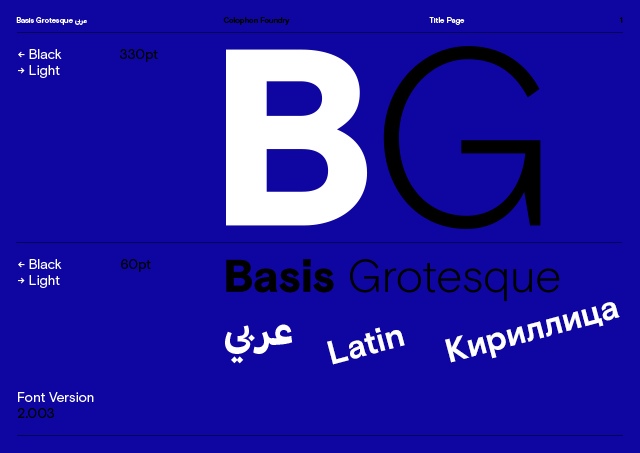
Basis Grotesque Pro Font
Basis Grotesque Pro Font is ideal for professional corporate branding, modern web interfaces, clean editorial design, tech startup communications, minimalist packaging, sophisticated business presentations, progressive digital platforms, architectural firm materials, contemporary art galleries, and streamlined visual identity systems.
What makes Basis Grotesque Pro Font so exciting is its fundamental excellence in contemporary sans-serif design that establishes the perfect foundation for professional communication across all modern media platforms. This professionally engineered typeface features precisely crafted letterforms with optimal geometric proportions and systematic character relationships that immediately convey competence, clarity, and contemporary design sophistication. The font's foundational construction and systematic aesthetic create an instant sense of reliable professionalism and modern accessibility, making it ideal for projects that need to communicate trustworthy expertise, innovative thinking, and the essential building blocks of effective communication to audiences seeking both functional excellence and professional credibility in their business interactions.
The Basis Grotesque Pro Font family typically includes comprehensive professional weights and systematic styles, often featuring thin through black weights along with corresponding italic versions and condensed variations. Professional grotesque font families frequently offer extensive character sets including advanced OpenType features, multiple numeral styles, and comprehensive international language support that ensure optimal typography across complex global communication requirements and diverse professional applications.
The systematic nature of Basis Grotesque Pro Font makes it particularly effective for complex design systems where consistency and scalability are essential for brand coherence and user experience success. Brand architects and system designers will find this font especially valuable for projects that must maintain visual integrity across multiple touchpoints while supporting extensive content hierarchies and diverse communication requirements.
What distinguishes Basis Grotesque Pro Font is its remarkable ability to serve as a reliable foundation while adapting seamlessly to diverse creative expressions. This versatile characteristic makes it suitable for both conservative corporate applications and progressive creative communications where establishing fundamental credibility is crucial for professional success.
Professional designers appreciate that Basis Grotesque Pro Font brings invaluable systematic reliability to projects across industries including technology, finance, healthcare, and professional services. Its foundational character and professional appeal make it essential for organizations seeking comprehensive typographic solutions that will provide consistent performance and professional credibility across all contemporary communication challenges.
The systematic design excellence of Basis Grotesque Pro Font ensures optimal foundational performance across all professional communication requirements while maintaining the flexibility essential for diverse creative applications.